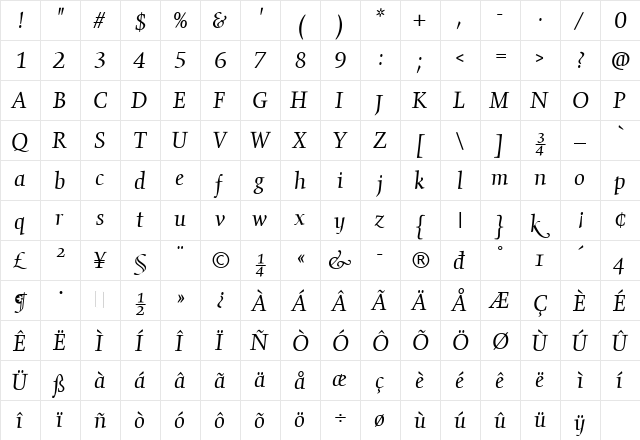
Gilgamesh Book Italic Regular
Design Context for Gilgamesh Book Italic Typeface
Gilgamesh Book Italic offers clean, dependable letterforms without strong stylistic allegiance, making it a practical choice for designers who need flexibility. The dynamic lean of this cut emphasises speed and emphasis in any layout.